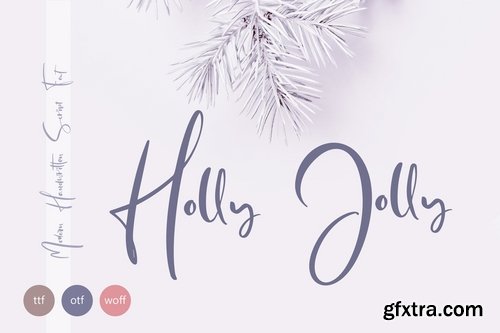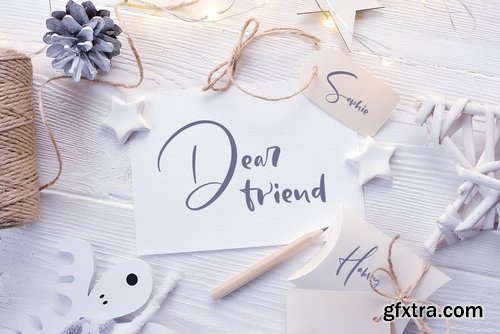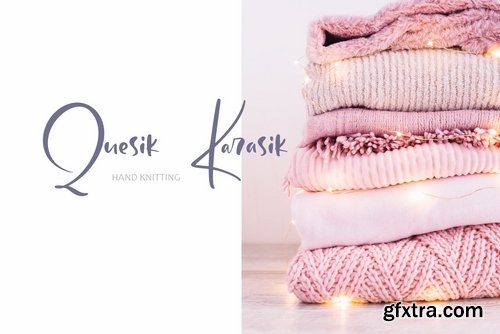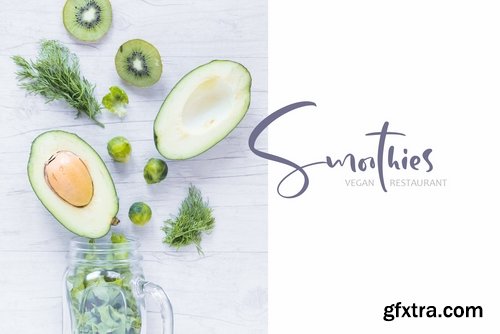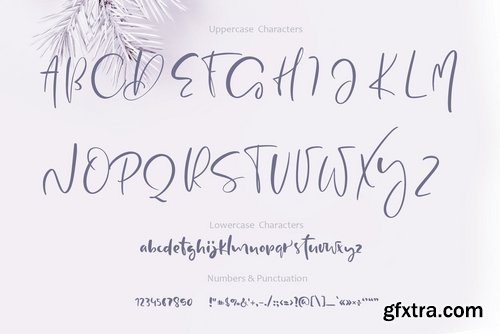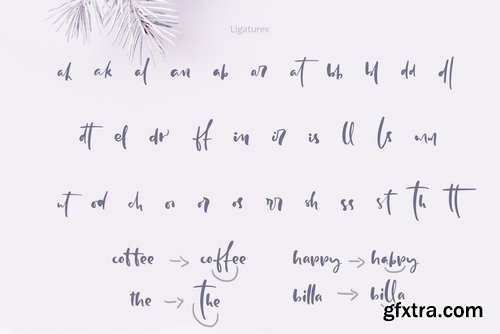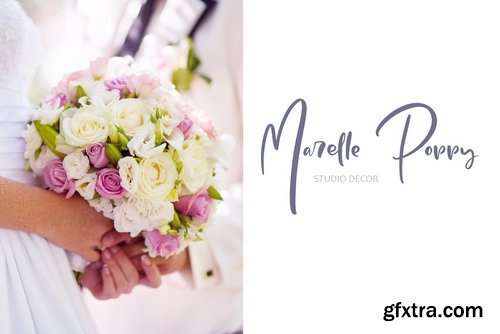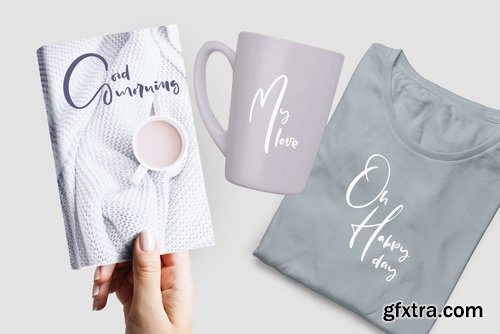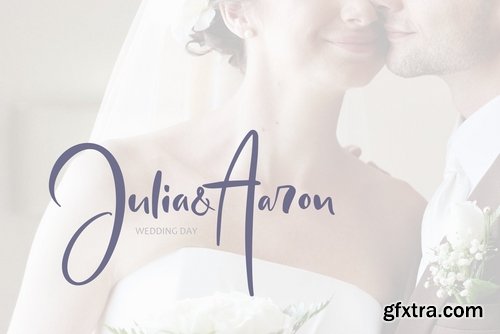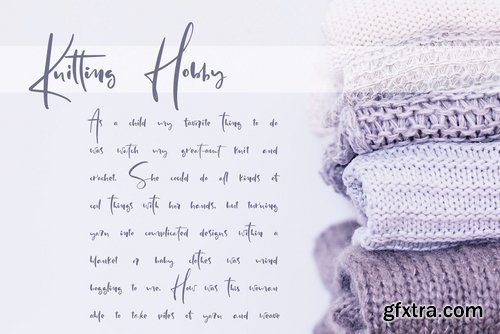
Unique handmade calligraphic Holly Jolly Hand Drawn Font is modern display font with alternative flourish lowercases, alternative uppercases and ligatures. Holly Jolly Hand Drawn Font is beautiful instrument for designers, blogers and everybody who loves handwritting calligraphy, for fans of puzzles and flowery flourish whorls and other people, who loves beauty and elegance. Help to you realize your dreams and design ;)